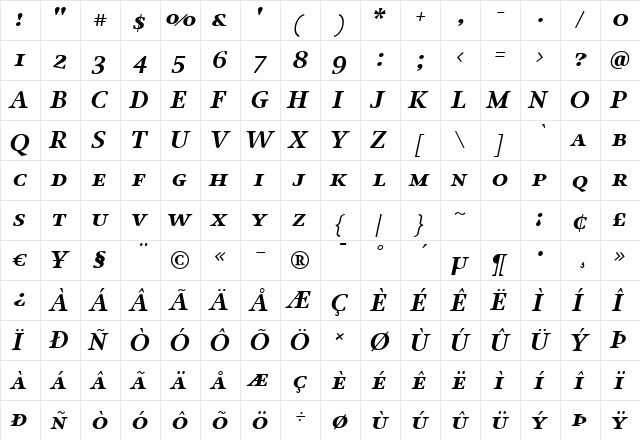
JudeBlackSmallCapsItalic Regular
Design Context for JudeBlackSmallCapsItalic Typeface
JudeBlackSmallCapsItalic is a composed and adaptable typeface that performs quietly and consistently across a wide range of design contexts. The dynamic lean of this cut emphasises speed and emphasis in any layout.
Pro Tip: Try JudeBlackSmallCapsItalic for annotation and caption copy alongside an upright companion — the contrast in angle creates a dynamic but ordered typographic system.